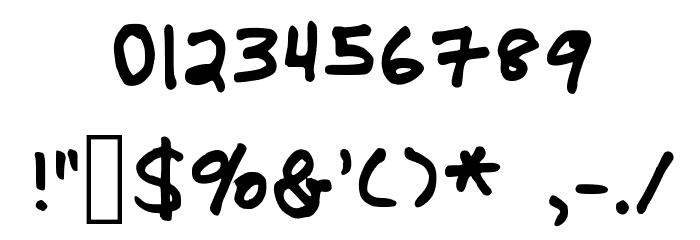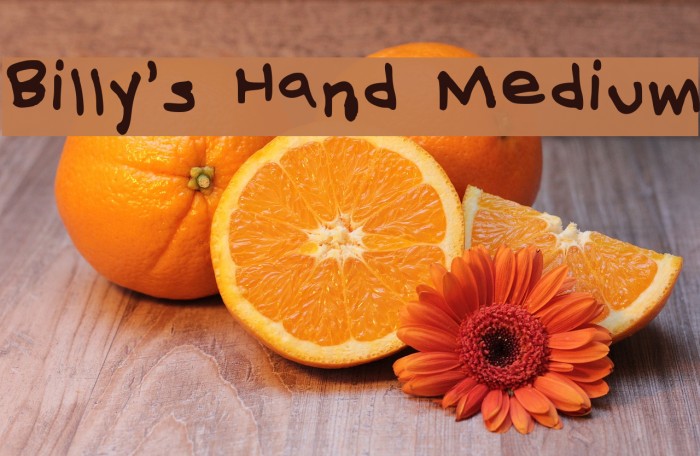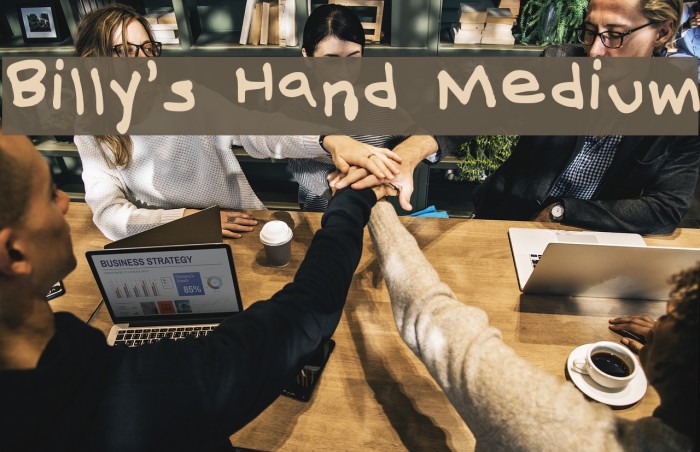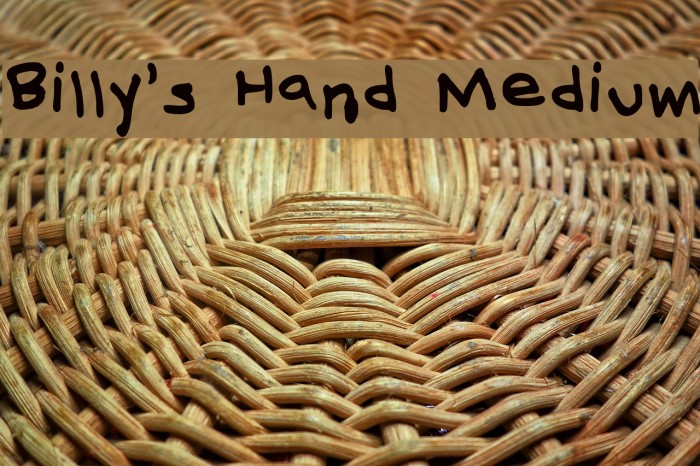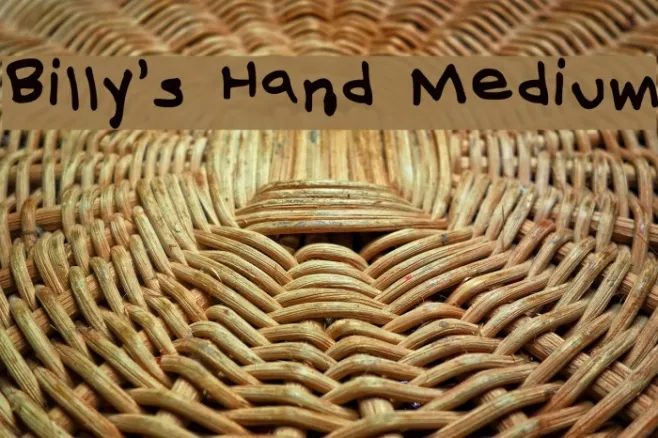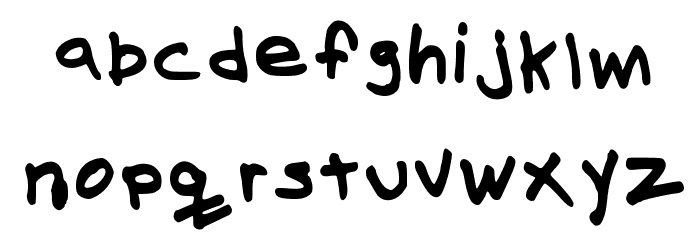
Billy's Hand Medium Font
Billy's Hand Medium Description
This font exudes a playful and casual handwritten style, characterized by its uneven strokes and organic flow. The letters have a natural, informal appearance, reminiscent of a personal note or a quick sketch. The uppercase and lowercase letters maintain a consistent style, with rounded edges and slight variations in height and width, adding to its charm. The numerals and special characters follow the same playful aesthetic, making it versatile for various creative projects. The overall look is approachable and friendly, perfect for conveying a sense of warmth and personality.
| Overall Style | Casual, Playful |
| Use Case | Logos, Invitations, Personal notes |
| Proposed Projects | Ideal for greeting cards, personal branding, children's books, and casual invitations. |